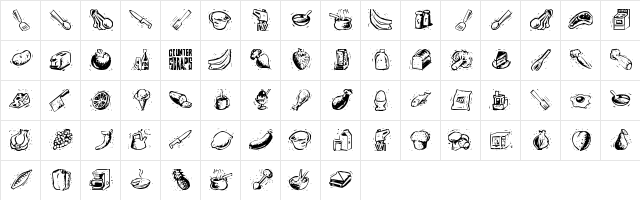
Counterscraps Regular Free Font
Counterscraps Regular
Counterscraps Family
Design Context for Counterscraps
Counterscraps is a composed and adaptable typeface that performs quietly and consistently across a wide range of design contexts.